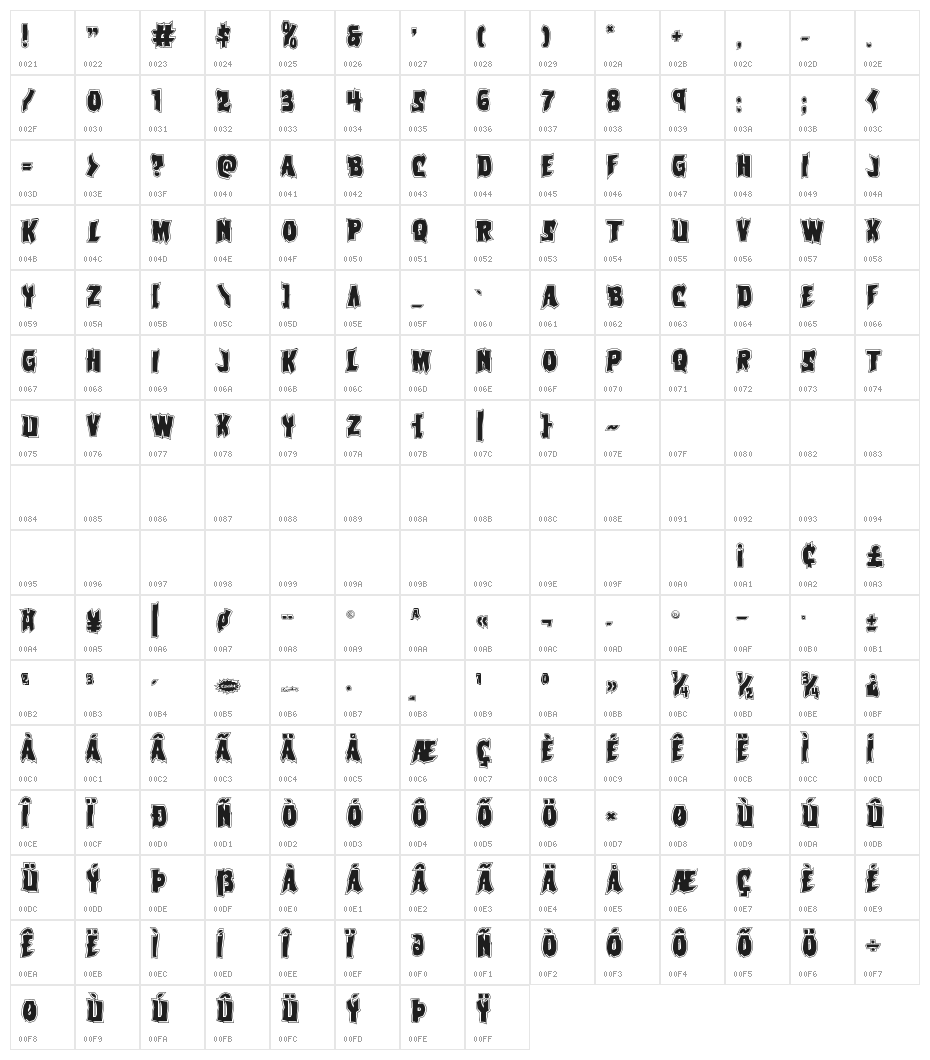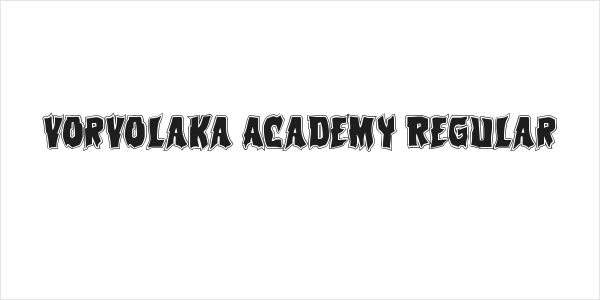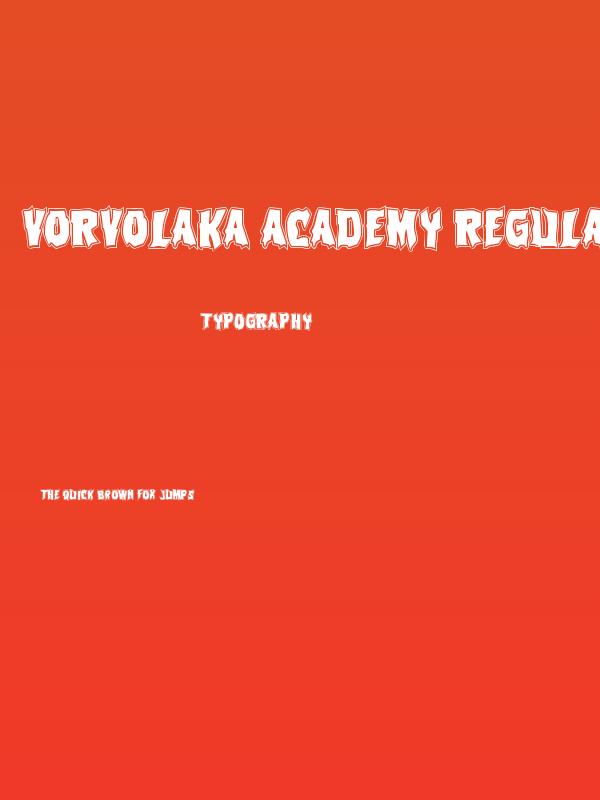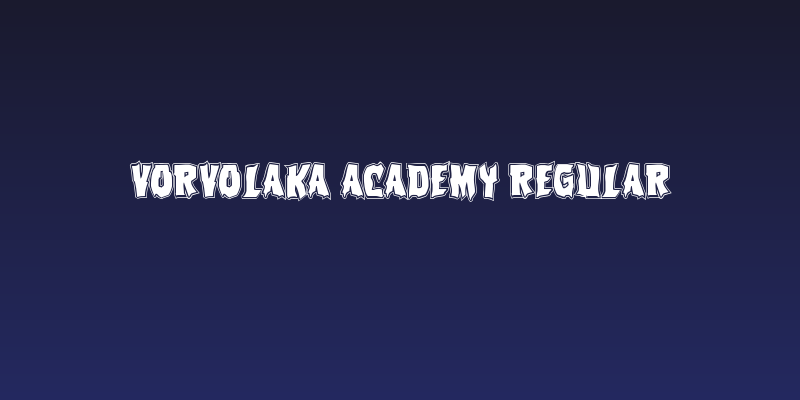
Vorvolaka Academy Regular Font
Vorvolaka Academy Regular Description
This font features a bold and striking design with a gothic-inspired aesthetic. The characters are outlined with a thick, jagged border that gives them a dramatic and edgy appearance. The interior of each letter is filled with a solid color, enhancing the boldness and making the text highly visible. The angular and sharp edges of the characters contribute to a sense of intensity and energy, making it ideal for attention-grabbing headlines or thematic designs. The font maintains a consistent weight throughout, ensuring uniformity and balance across all characters. Its unique style is reminiscent of horror or fantasy themes, making it suitable for creative projects that require a distinctive and memorable typeface.
| Proposed Projects | Ideal for horror-themed posters, fantasy book covers, video game titles, and Halloween event flyers. |